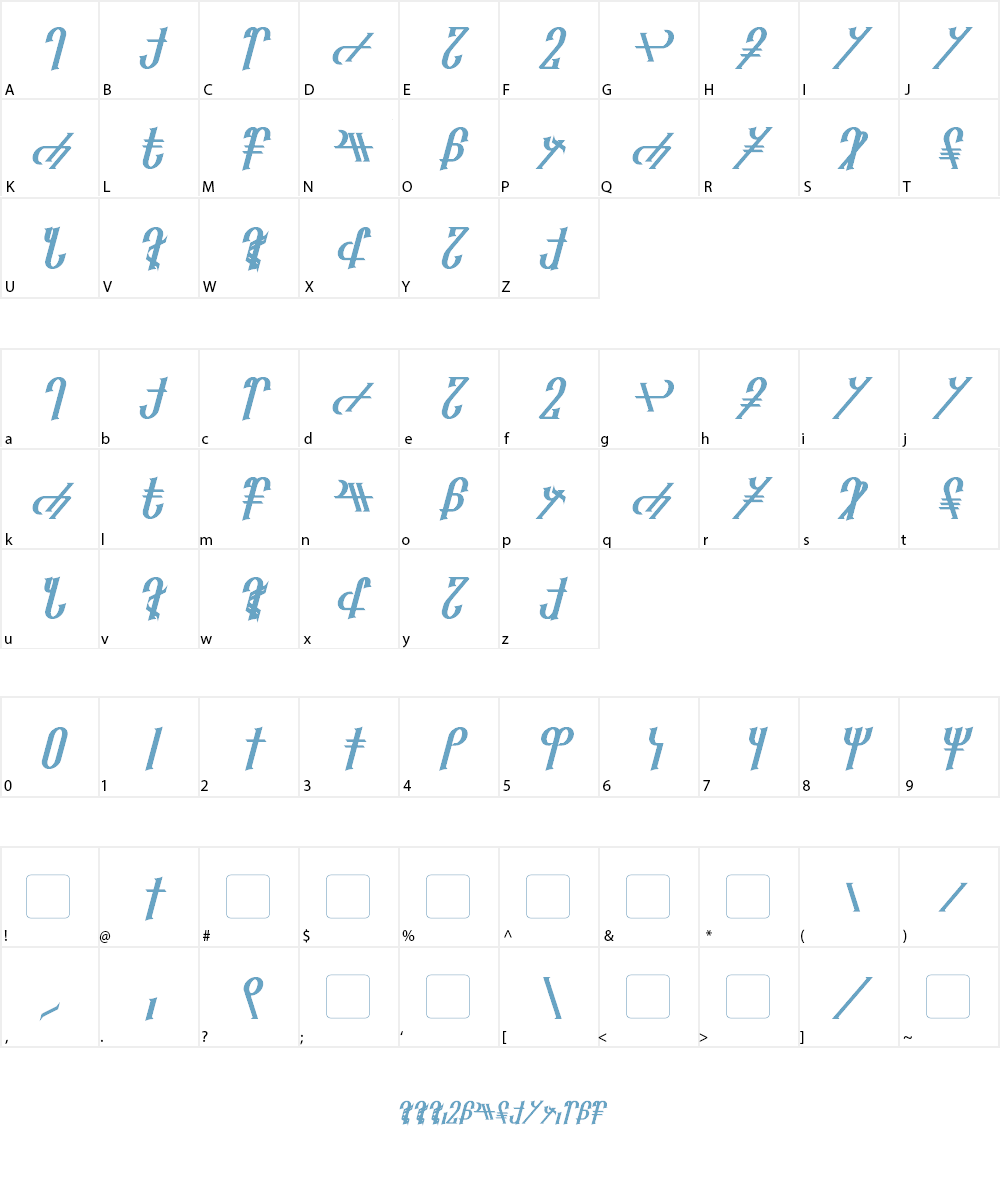
Reanaarian is a ‘printed script’ version of the ancient language script found in Kenzer and Co.’s Kingdoms of Kalamar campaign. Includes all canon symbols, an updated version of the trade numerals, and some fan-based punctuation. Includes bold, italic, and bold-italic weights.